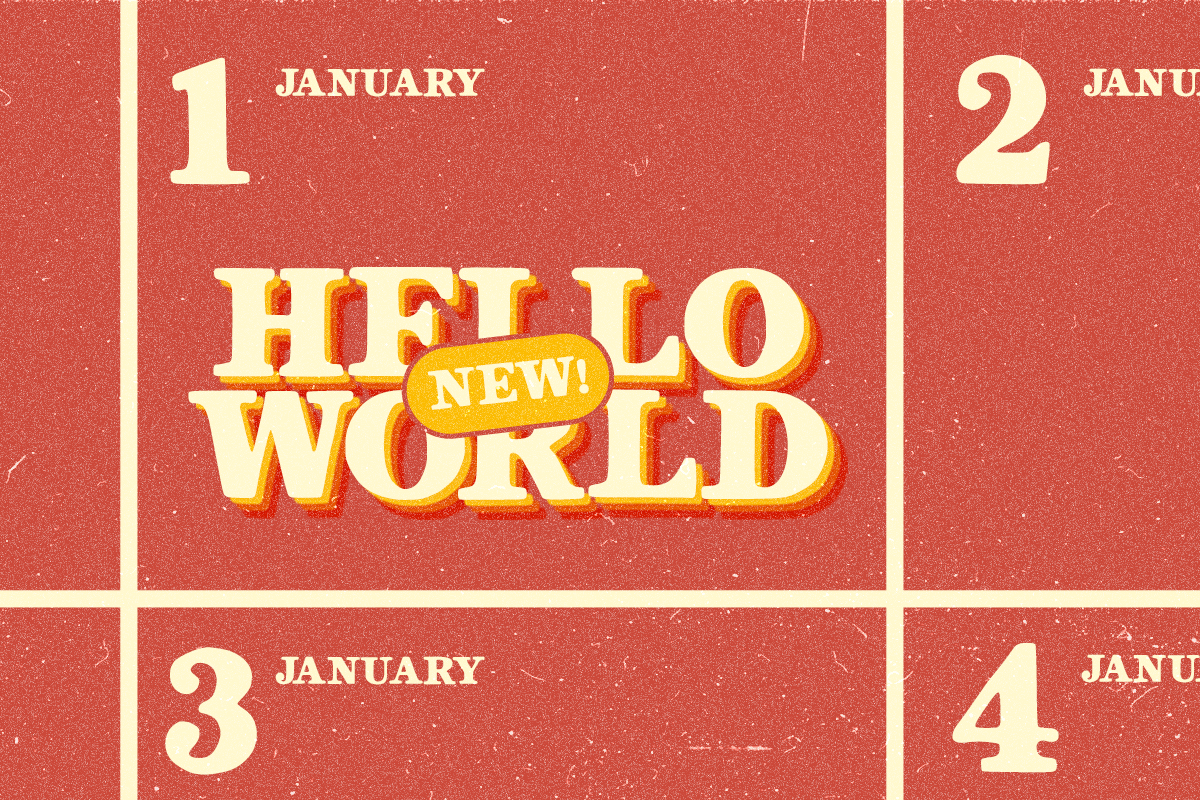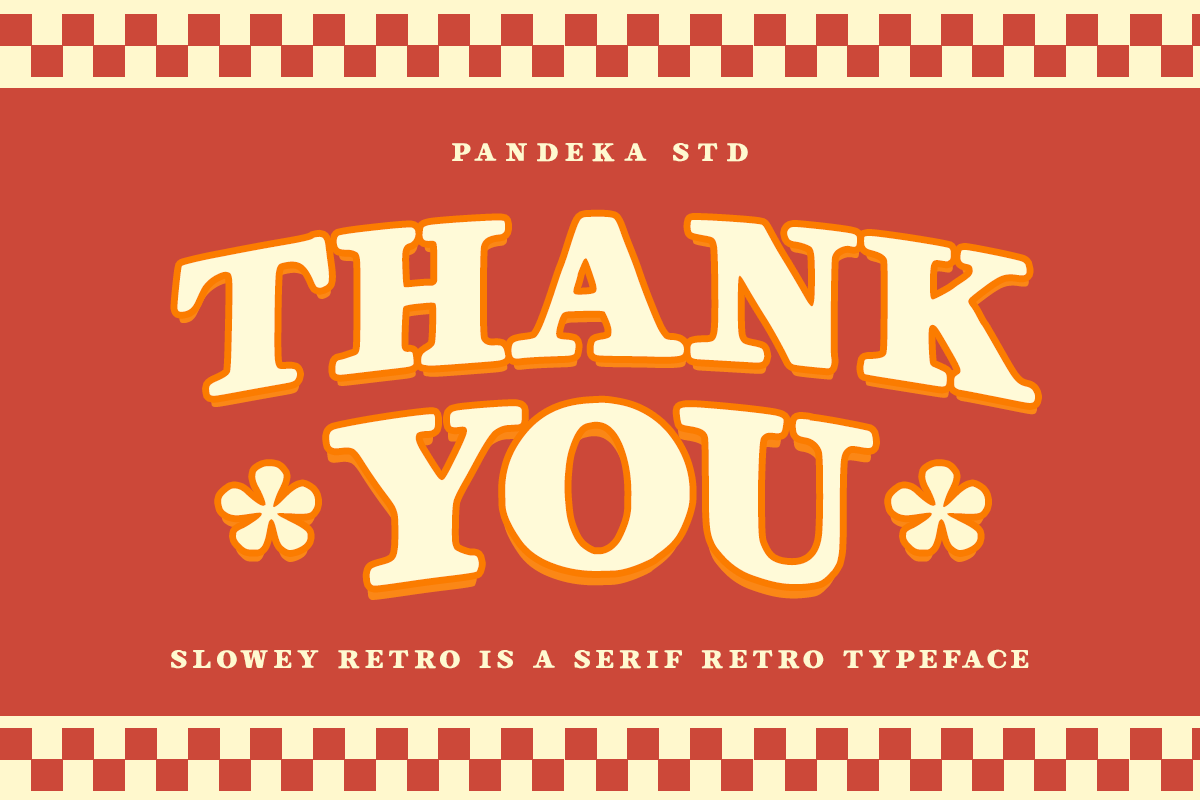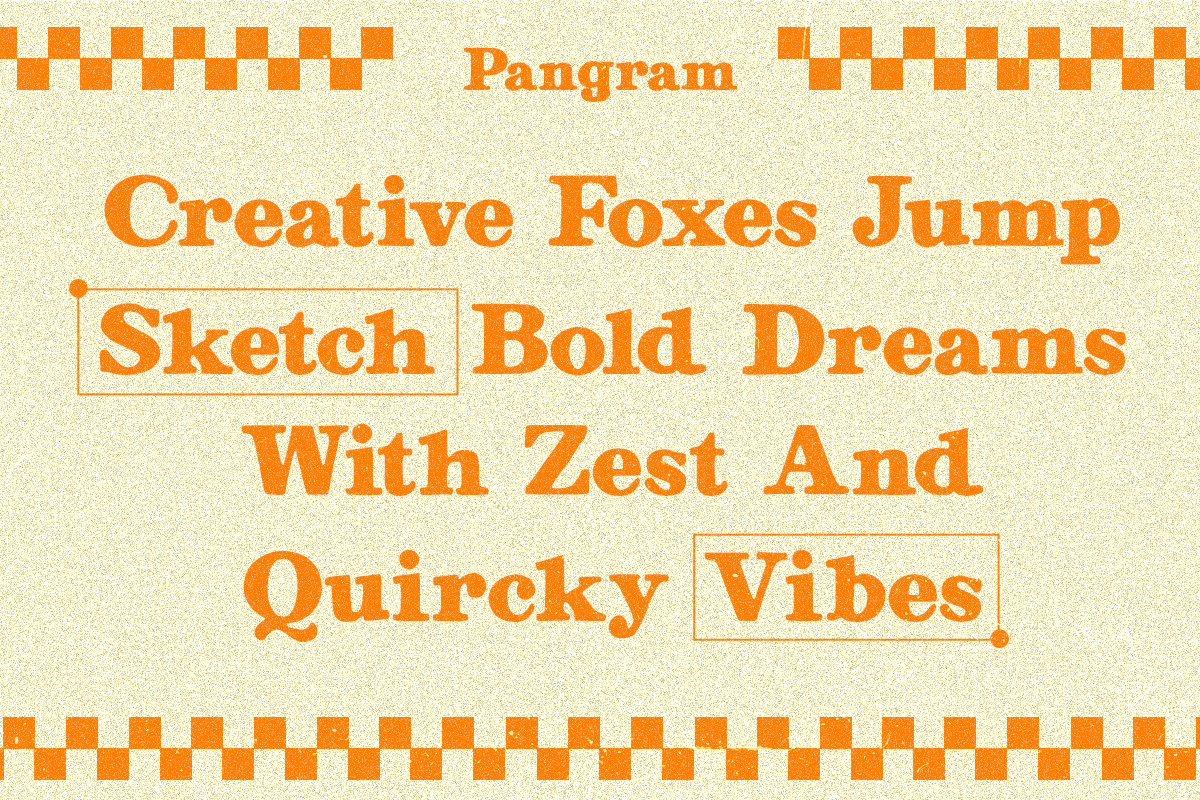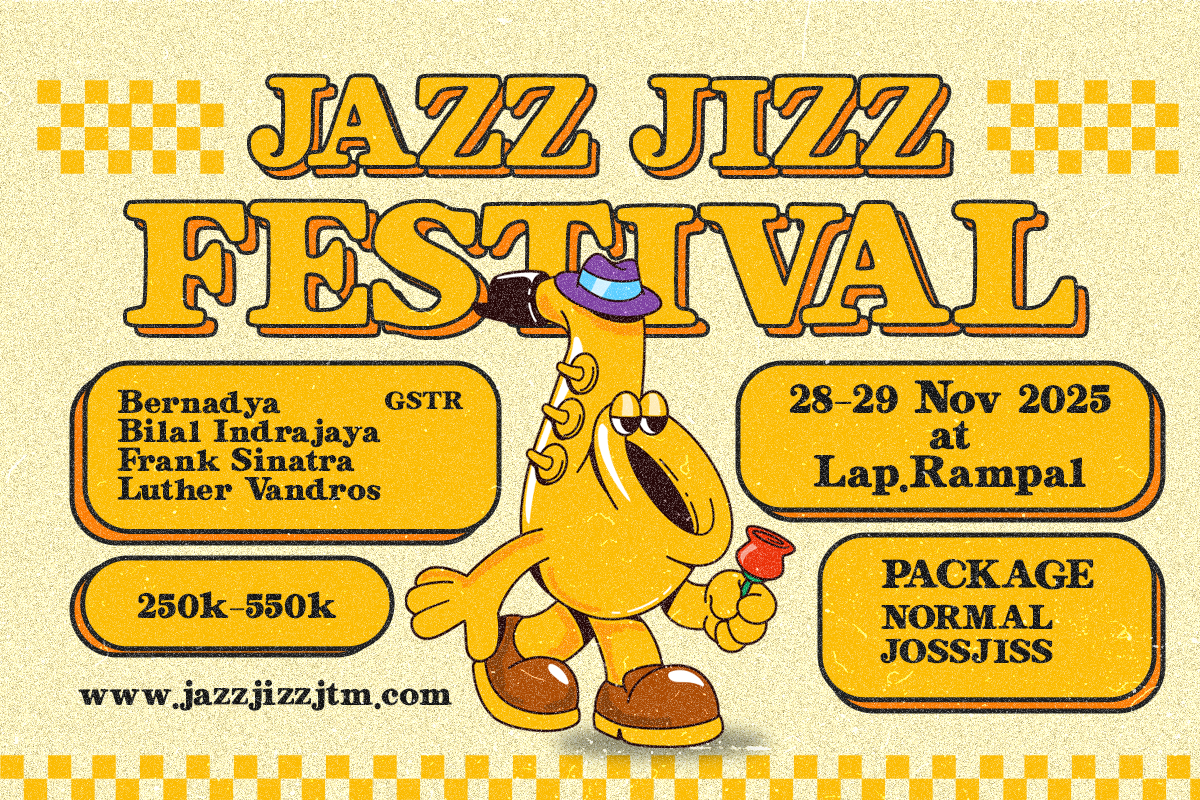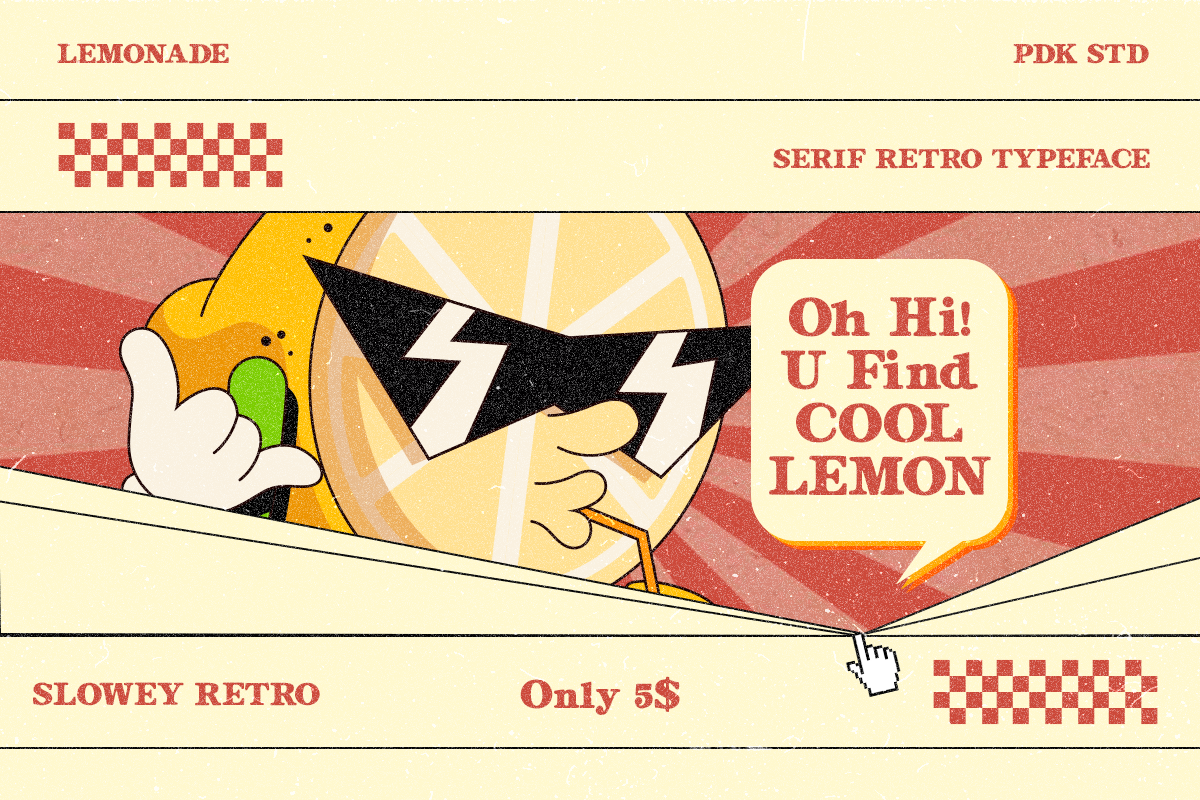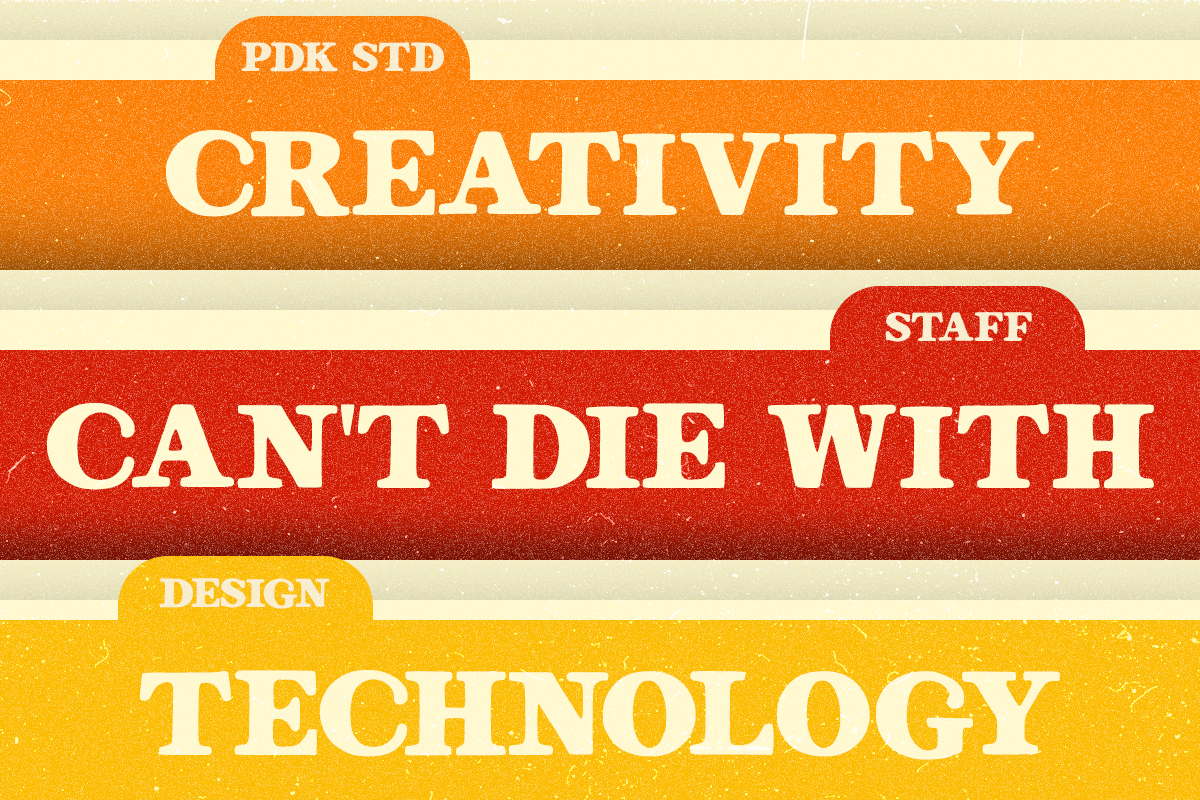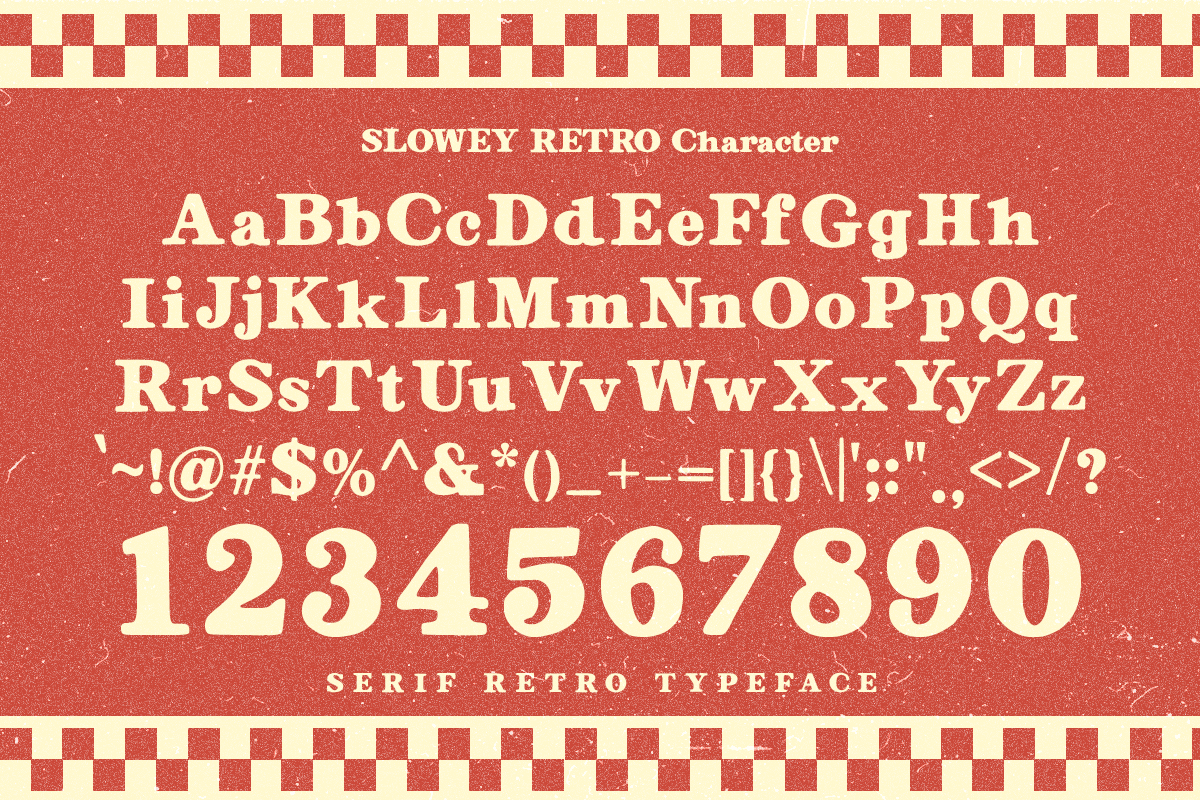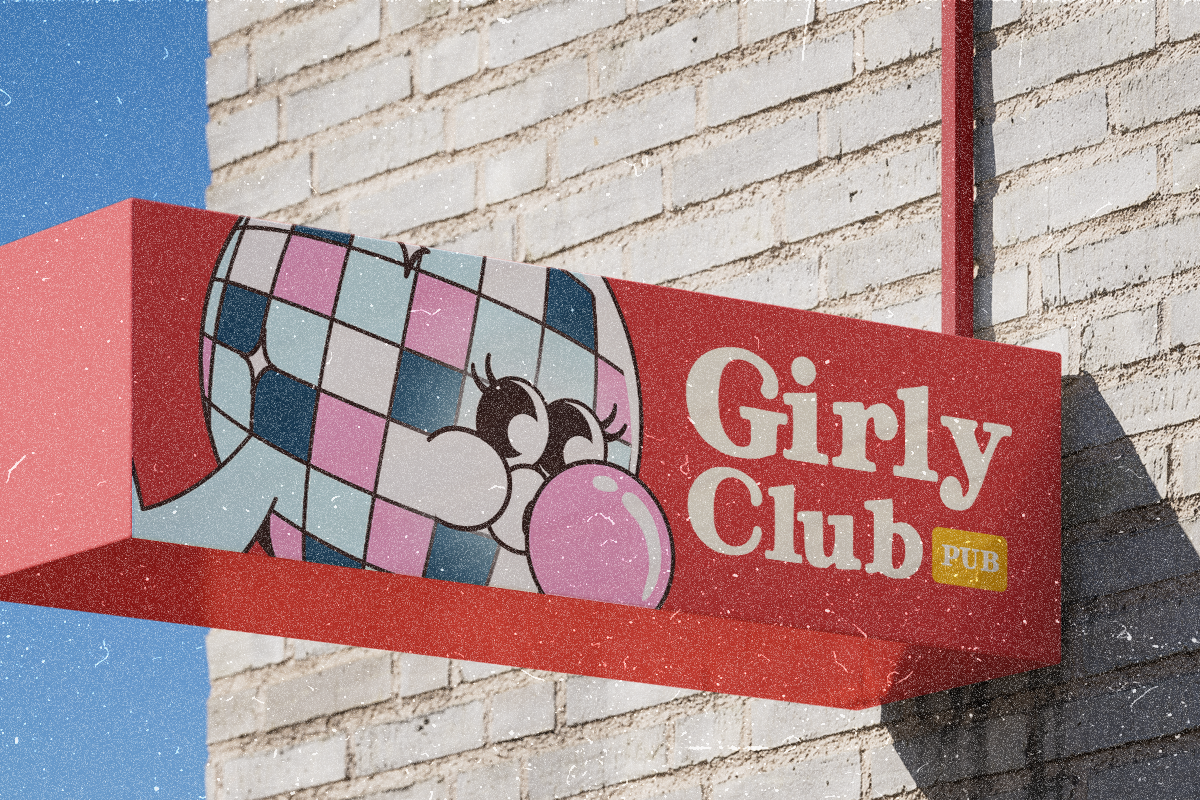
Slowey Retro - Playful Serif Display
Slowey Retro is a vibrant serif display font infused with groovy 70s energy and a whole lot of charm. With bold curves, vintage flair, and a punchy presence, this typeface brings joyful nostalgia to your designs. Inspired by retro posters, funky signage, and disco-era aesthetics, it’s built to stand out with character and confidence.
Whether you're designing for music festivals, funky packaging, bold headlines, or playful branding, Slowey Retro delivers a dose of cheerful attitude and expressive style. Its versatility makes it a go-to for everything from retro product labels to eye-popping typographic posters.